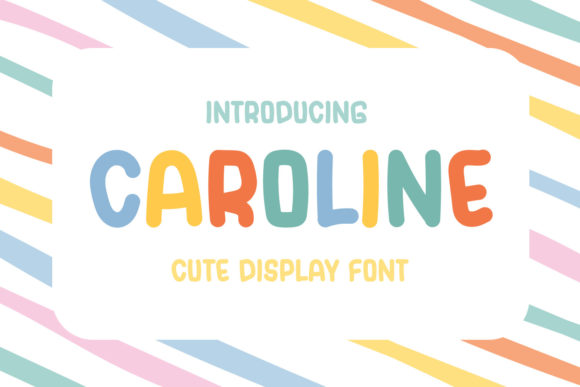
The Quest for the Perfect Font: Discovering Caroline
I’ll never forget the time I was working on a project for a children’s book, and I just couldn’t find the right font to bring the story to life. The client wanted something playful, yet elegant, and I was determined to deliver. After hours of scouring the internet and trying out different fonts, I stumbled upon Caroline – a cute and playful display font that instantly captured the essence of the story. In this article, I’ll share my experience with Caroline, its features, and how to make the most of it in your designs.
An Honest Review of Caroline
What I Love About Caroline
- ✨ Cute and Playful: Caroline is perfect for designs that require a lovely touch, such as cartoon-related designs, children’s games, or whimsical illustrations.
- ✅ Elegant yet Informal: This font strikes the perfect balance between elegance and playfulness, making it suitable for a wide range of creative projects.
- 💡 Highly Versatile: Caroline can be used for titles, headings, or even short paragraphs, and its versatility makes it a great addition to any designer’s font library.
While Caroline is an excellent font, there are a few things to keep in mind:
- 🤔 Limited Use for Body Text: Due to its playful nature, Caroline might not be the best choice for lengthy body text. It’s better suited for headings, titles, or short paragraphs.
- ⚠️ Glyph Limitations: While Caroline has a range of glyphs and stylistic alternates, it might not have every special character or symbol you need. Be sure to check the font’s capabilities before using it for a project.
The Story Behind Caroline
Caroline was designed by a talented type designer who wanted to create a font that captured the essence of childhood wonder. Inspired by classic children’s books and playful illustrations, Caroline is a font that brings a touch of magic to any design.
Q: What type of projects is Caroline best suited for?
A: Caroline is perfect for designs that require a playful, yet elegant touch, such as children’s book illustrations, cartoon-related designs, or whimsical graphics.
Q: Does Caroline support OpenType features?
A: Yes, Caroline supports OpenType features like ligatures and stylistic alternates, which can add a personal touch to your designs.